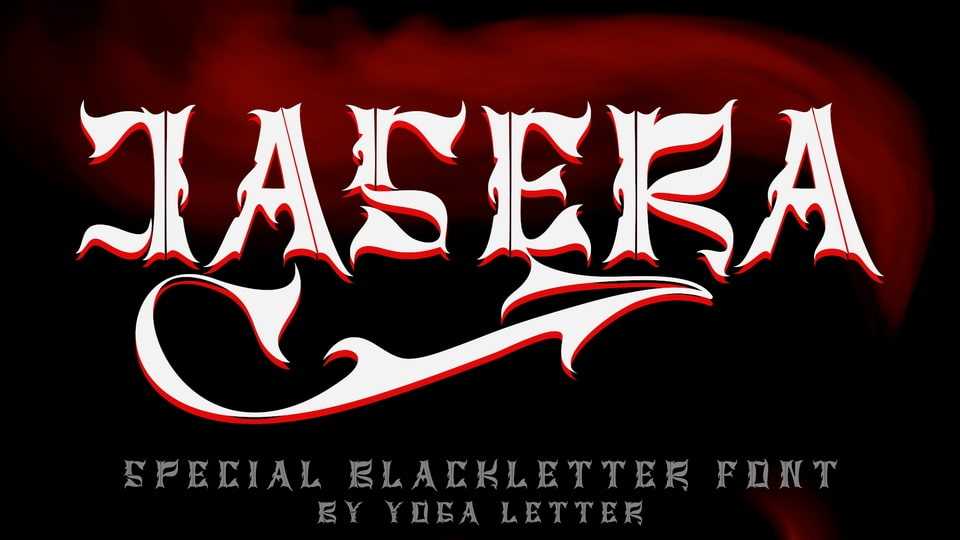
Download Jasera font, a professional and elegant blackletter typeface. Very suitable for tattoos, stickers, movie titles, logos, cinema, horror, barber, cafe, business branding and others.